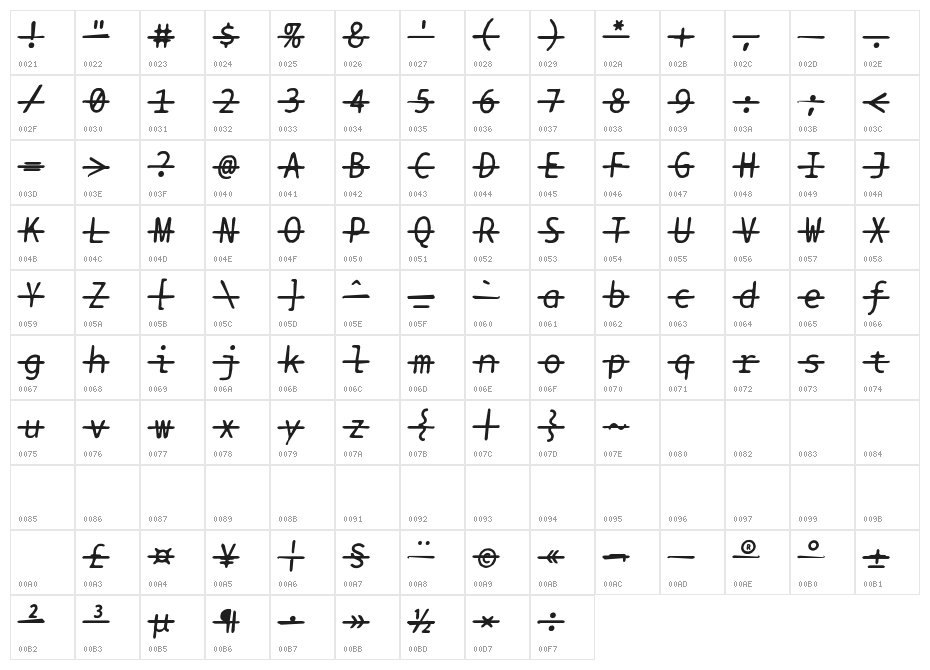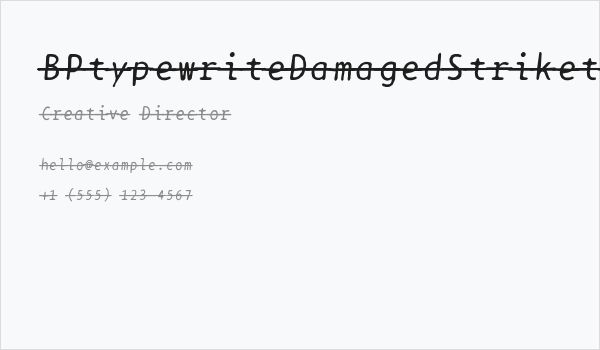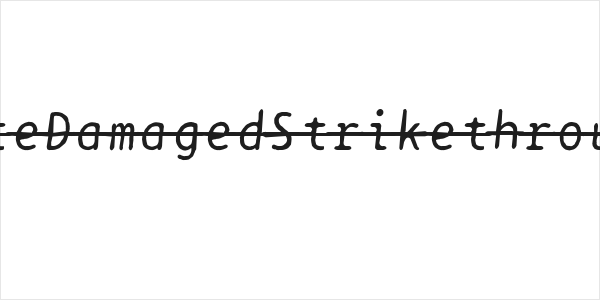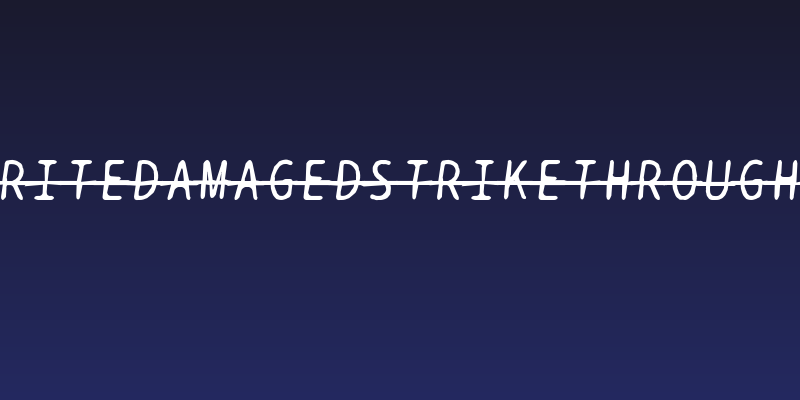
BPtypewriteDamagedStrikethrough Italic Font
BPtypewriteDamagedStrikethrough Italic Description
This font features a distinctive typewriter style with a unique strikethrough effect applied to all characters. The letters are slightly italicized, adding a dynamic and informal touch. The characters are monospaced, reminiscent of classic typewriter fonts, with consistent width across both uppercase and lowercase letters. The numbers and special characters maintain the same style, ensuring uniformity throughout. The strikethrough adds a layer of complexity, making it suitable for creative and artistic projects where a vintage or retro aesthetic is desired.
| Use Case | Logos, Artistic projects, Retro designs |
| Proposed Projects | Ideal for retro-themed designs, artistic projects, or any creative work requiring a vintage typewriter aesthetic. |